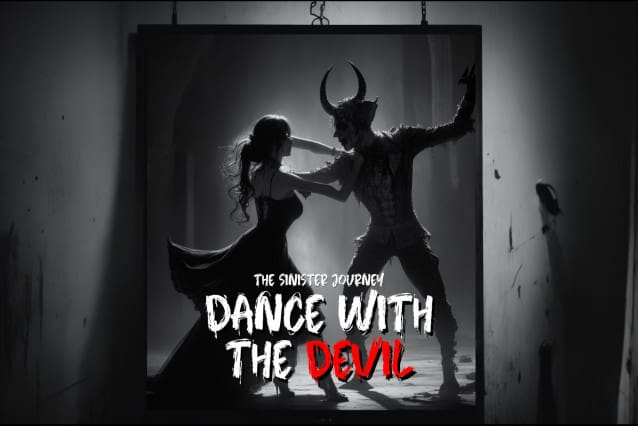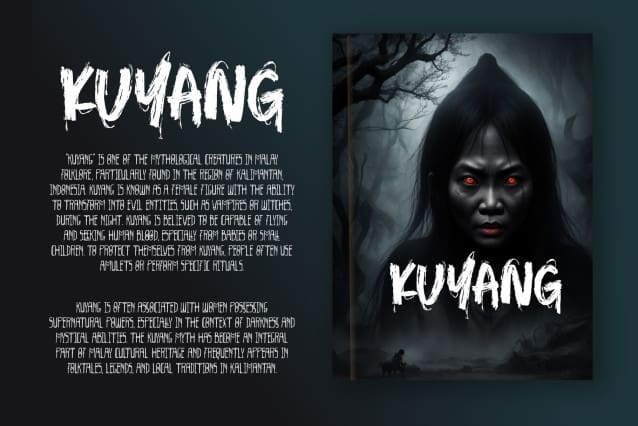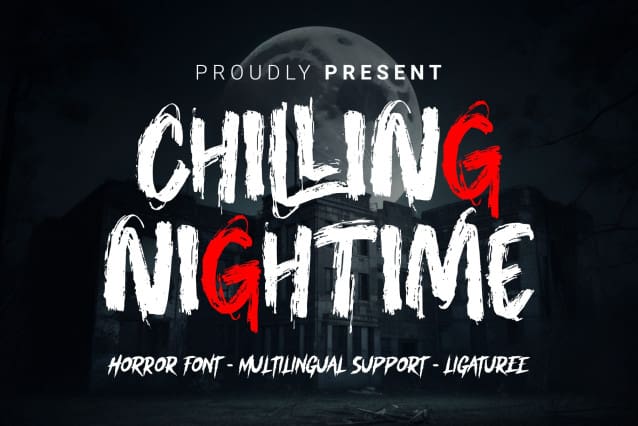
Chilling Nightime Font
Chilling Nightime Font – Horror Font is a font designed to create a chilling and horror atmosphere in text. This font combines elements of a brush style with hints of carving, creating a distinct look reminiscent of inscriptions or carvings that appear at night. The font features rough and slightly blurred hand strokes, giving it a dark and mysterious impression, suitable for evoking a horror atmosphere in graphic designs, posters, or scary titles.
With bold and sometimes slightly distorted letters, “Chilling Nightime” reinforces the sense of loneliness and fear you might experience deep in a dark forest in the middle of the night. It’s an ideal choice for projects that require a terrifying and eerie appearance, immersing you in an unexpected world of horror.